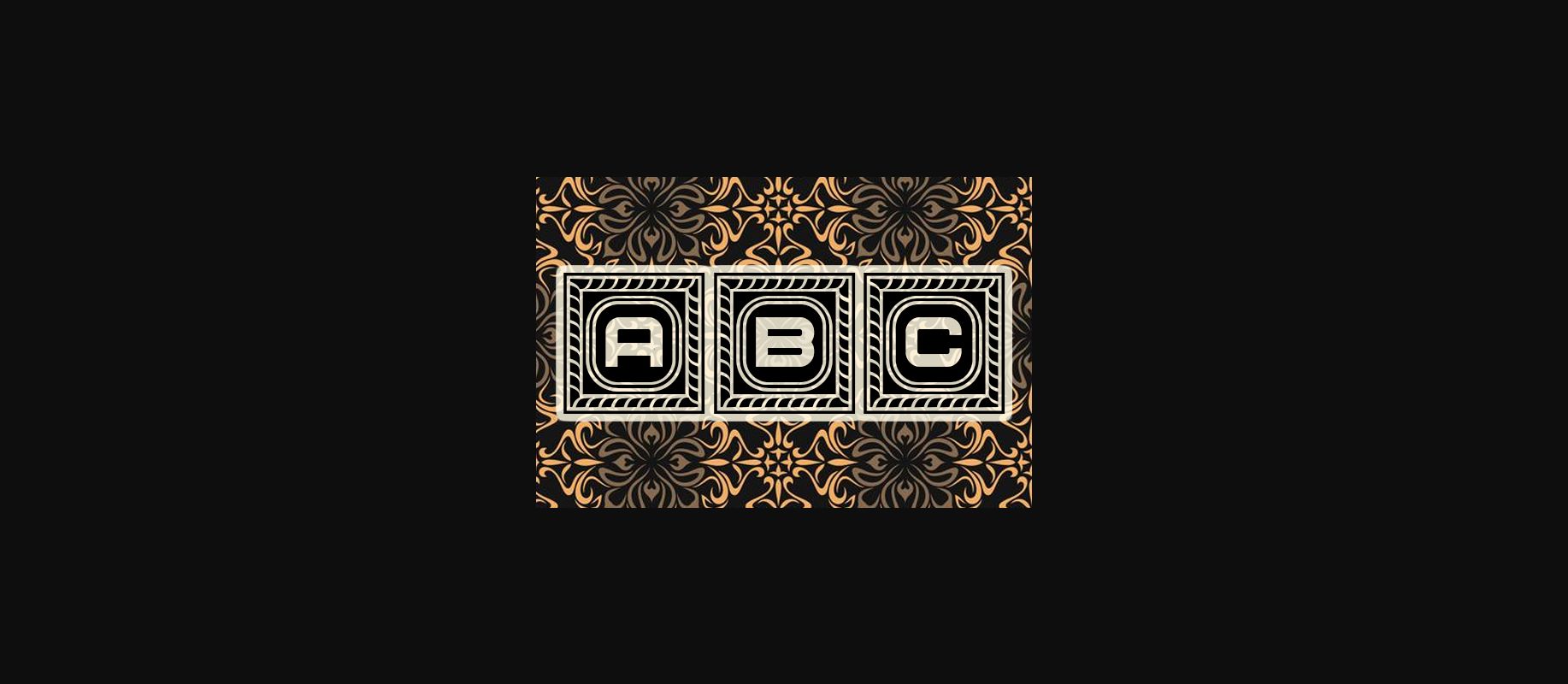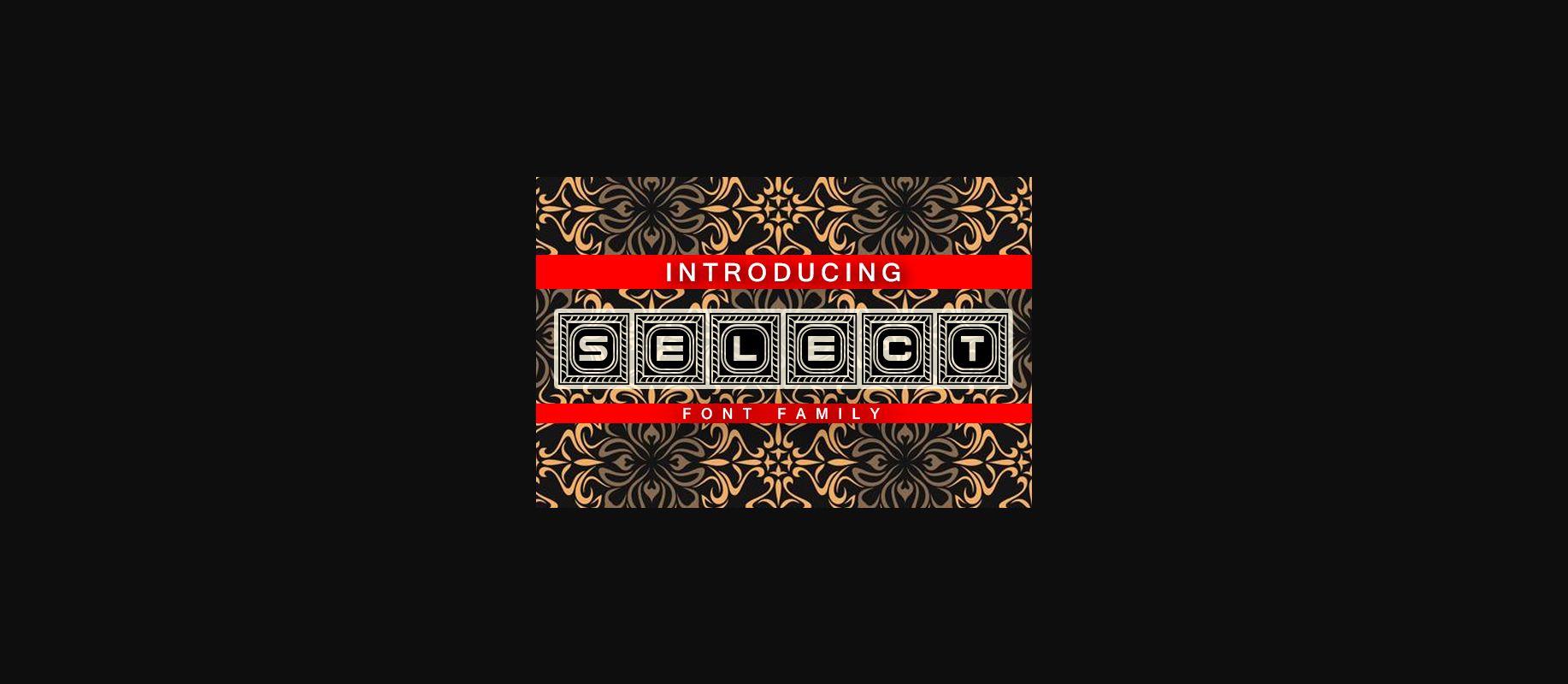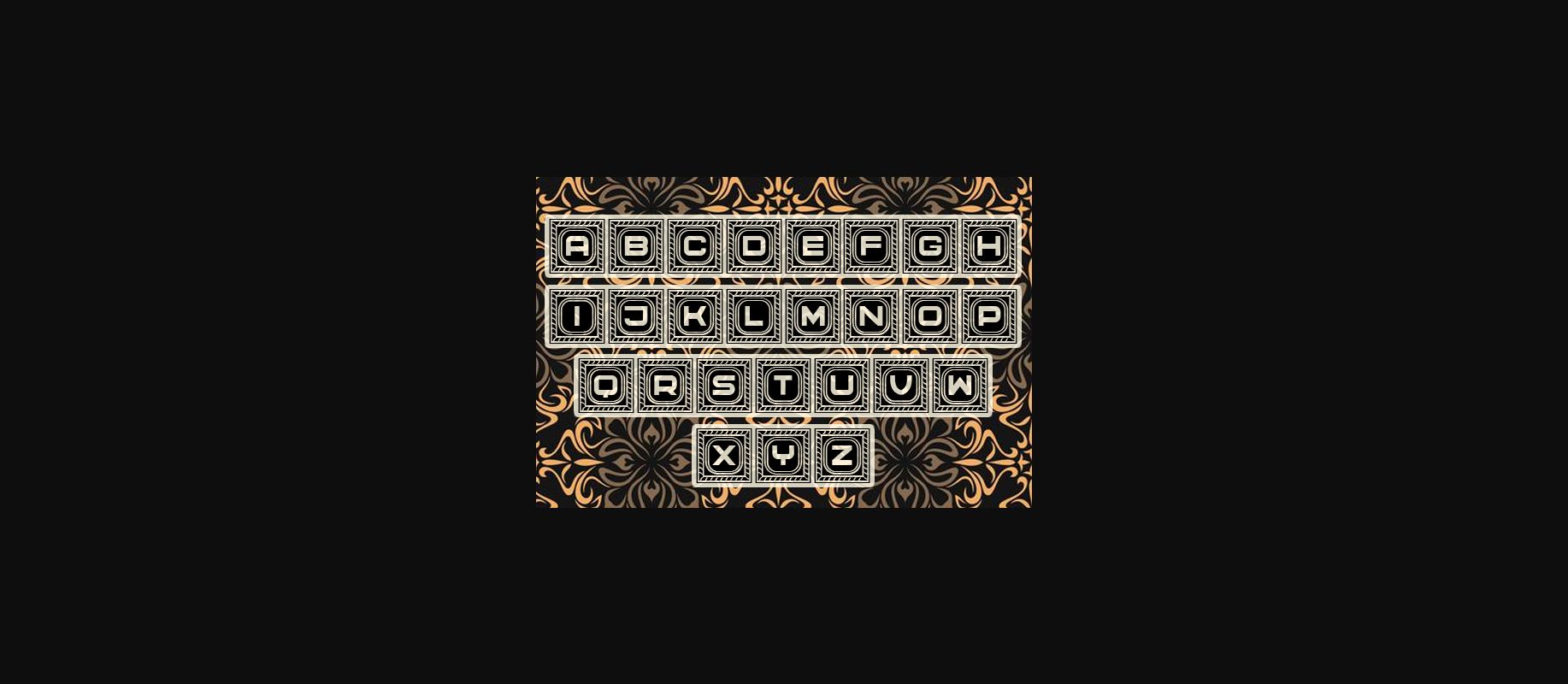
Select Font
About Select Font
Select is a bold and authentic decorative font. It celebrates abstract shapes in all their eclectic brilliance. Add this font to your creative ideas and notice how it will make them stand out!